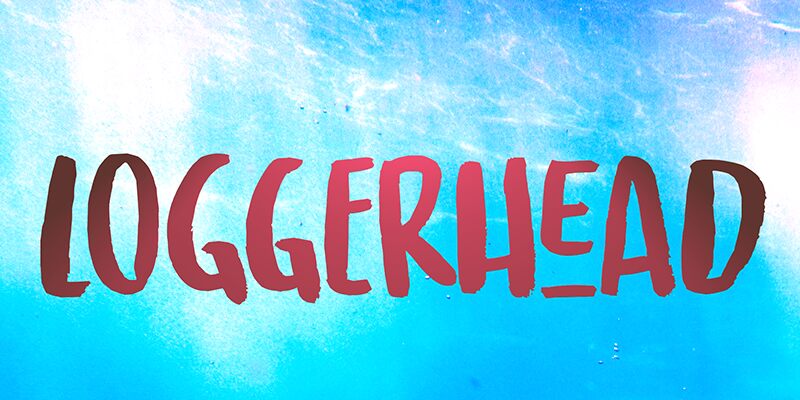
Loggerhead DEMO Regular
Loggerhead font is a condensed brush typeface designed by Hanoded. The rugged design with irregular shapes gives it an organic feel and friendly character with lots of personality. Its textured finish brings contemporary appeal to printed or digital media types, especially large sizes such as headings or titles.